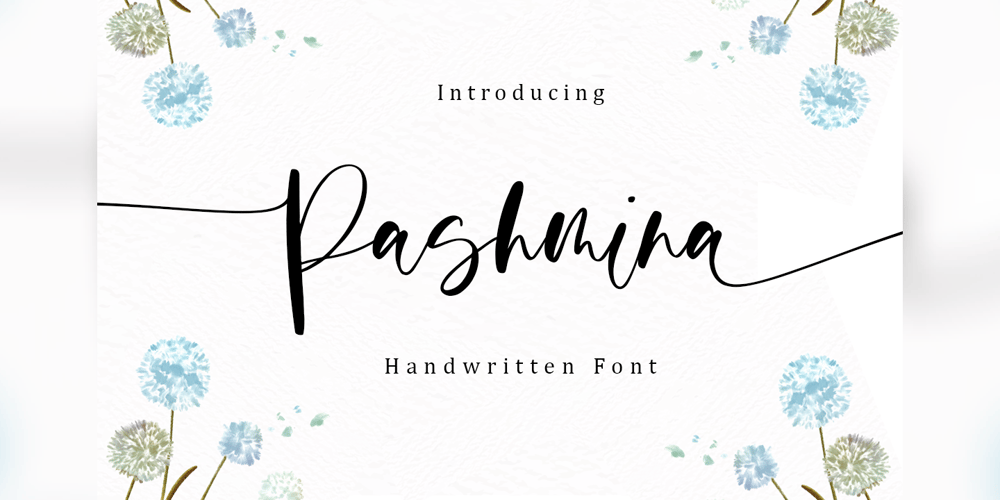
Pashmina Font Family was designed by Muhamad Yusron Billah and published by Sronstudio. Pashmina contains 1 styles and family package options. Pashmina is a beautiful handwritten font perfect for crafting, branding, invitation, stationery, wedding designs, social media posts, advertisements, product packaging, product designs, label, photography, watermark, special events or anything.Pashmina comes with full set of uppercase and lowercase letters, swash alternates, ligatures,multilingual symbols, numerals and punctuation.